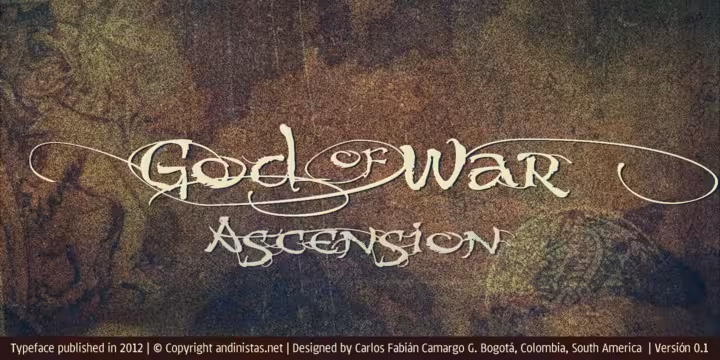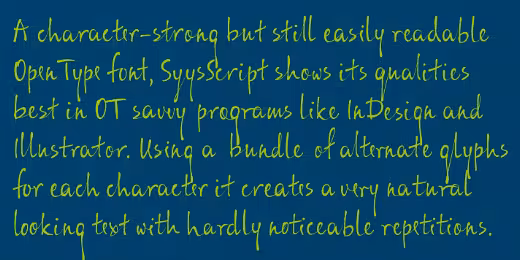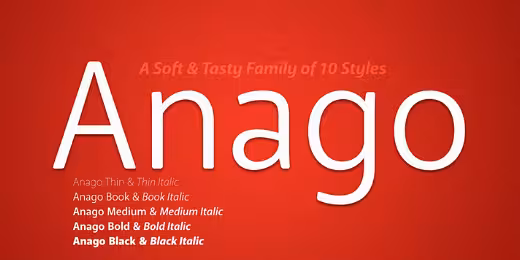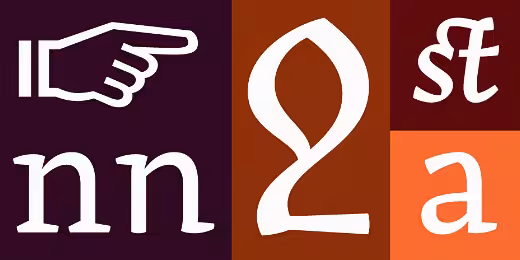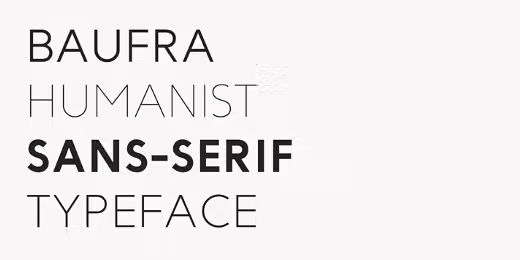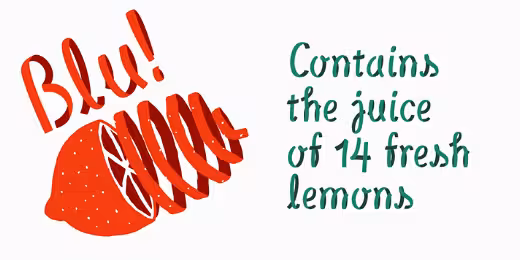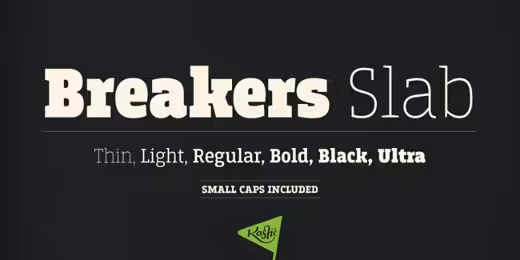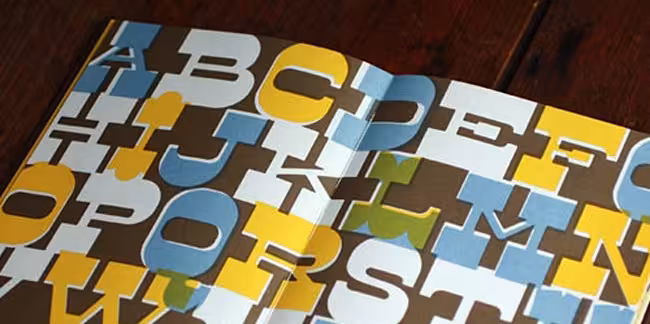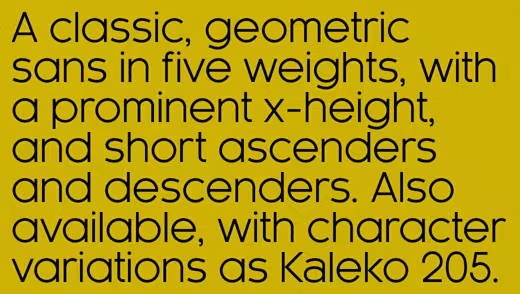
38 Of the most beautiful typeface designs released this winter
Anyone who’s tried their hand at designing a typeface will know that it’s a wildly difficult process, and to actually come out at the end with something beautiful takes an extreme amount of skill, taste and patience.
Type design isn’t for everyone, but typography is, and nearly every designer works with it every day. This is exactly why Type Release creator Sean Mitchell is here to share with you a list of 38 beautiful typefaces, all of which were released this winter. These are his findings:
Associated Typographics: Ramsey
With strong structure and a warm personality, this typeface is a stout but refined workhorse.
Process Type Foundry: Klavika Display
From extra stuffed to skeletal thin, Klavika Display is a collection of fonts for large sizes and an even larger impact.
Okay Type: Harriet
A rational serif family, a contemporary reflection of the serifs popular in mid—20th—century American and English design.
Hoefler & Frere-Jones: Tungsten
The New Tungstens, a set of four different widths, each in eight weights. A compact and sporty sans serif that’s disarming instead of pushy — not just loud, but persuasive.
Jörg Schmitt: Ingrid Mono
The birth of the monospaced types dates back to the past. There was a need for the creation of typesets for typewriters. The difficulty was to align the different glyphs in the same width.
Lost Type Coop: Dude
A reverse contrast cowboy font thats got true grit. It’s not about weight, its about style. Twelve different serif styles inspired by country musics legends.
Sudtipos: Poem Script
A mixed collection of interpretations conjuring a late nineteenth century American pen script style.
The Northern Block: Baufra
A humanist sans—serif typeface, based on the sans—serif typefaces of the early 20th century.
Monokrom: Telefon
Designer: Sindre Bremnes
Based on the lettering on the original Norwegian phone booths, drawn by architect Georg Fredrik Fasting in the 30’s. A general purpose geometric sans serif in three weights.
Monokrom: Satyr
Designer: Sindre Bremnes
Contrasts convex with concave curves, sculpting letterforms instead of adhering to the traces of a physical tool.
Positype: Anago
Designer: Neil Summerour
Soft, ample letterforms are casually constructed and the end result produces a typeface that changes color as it varies in size — allowing the type family to work well in both text and display settings as long as attention is given to size.
Positype: Macha
Designer: Neil Summerour
It’s no-nonsense construction bears many influences from Gill Sans and Frutiger while stubbornly blending my own humanist touch.
Designer: Mateusz Machalski
Wood Type Collection from Borutta is a set of wonderful, warm and weathered hand made typefaces. The inspiration for this collection comes from a wooden letter blocks and other old technologies used for printing.
Font Bureau: Serge
Designer: Cyrus Highsmith
A frisky, acrobatic face that dashes off decorative blurbs, signs, and headlines with a lively, angular zest.
Rene Bieder: RBNo2.1
A condensed sans serif typeface with a technical and geometric appearance.
Art. Lebedev Studio: ALS SyysScript
Designer: Julia Sysmäläinen
Handwriting of a strong Carelian personality revived.
Suitcase Type Foundry: Tabac Slab
Designer: Tomas Brousil
Created by combining several contradictory influences, the result of which is a universal linear font.
Typedepot: Centrale Sans Condensed
Designer: Alexander Nedelev & Veronika Slavova
15% Narrower than its normal sibling, which makes it precious spacesaving tool. 9 weights from Hairline to Extra Bold plus matching italics.
Los Andes: Magallanes Essential
Designer: Daniel Hernández
A contemporary neo—humanist sans serif font designed by Daniel Hernández. Its strokes and terminals are related to the calligraphic strokes from humanist typefaces.
Kostic: Breakers Slab
Designer: Nikola Kostić
A versatile typeface that is strong in headlines and legible in text, with a range of distinct weights from delicate thin to chunky ultra.
Kyle Wayne Benson: Farmer’s Co-op
The extended, extra bold, uppercase, sans serif your forefarmers would have used.
Kyle Wayne Benson: Millie
Much like the Milwaukee logo, Millie is meant to be used on a bit of an angle — though, she looks just fine without it.
Ludwig Type: Marat Sans
Designer: Ludwig Übele
A clean and lively sans serif typeface, characterized by excellent legibility.
Leo Koppelkamm: Blu
An innovative multilayered font, seemingly inspired by bicycle tires and paper streamers, it fits many use cases brilliantly.
Talbot Type: Kaleko 105
Designer: Adrian Talbot
Inspired by the classic, geometric sans-serifs such as Gill Sans, but has shallower ascenders and descenders for a more compact look.
The Northern Block: Reznik
Designer: Jonathan Hill
A compact sans serif with a technical origin. Each character was drafted out from a grid template and then refined through the application of subtle curved detailing.
TipografiaRamis: Decima Mono Pro
Designer: Ramiz Guseynov
A condensed geometric monospaced san serif, built in six styles.
Mika Melvas: Saline
saline
An angular and bumpy brush script. It includes set of nautical ornaments as a OpenType feature.
Latinotype: Schwager
Designer: Luciano Vergara
A steampunk slab serif typeface with an industrial accent in a contemporary tone.
Sudtipos: Platinus Script
Designers: Angel Koziupa & Alejandro Paul
Explores the evolution of invitation scripts from the classic commercial lettering of the 1930s to the ideas clearly visible in the greeting cards of the 1980s and 1990s.
Bold Monday: Macula
Designer: Jacques Le Bailly
Can be described as the ‘impossible typeface’, since its design is based on the concept of impossible objects. This optical illusion was explored into great detail in the 1930’s by the Swedish artist Oscar Reutersvärd, and simultaneously made very famous by Dutch artist M.C. Escher.
Wilton Foundry: Cielo
Designer: Robbie de Villiers
A versatile contemporary typeface family that will serve you well in many design situations.
Rosetta Type Foundry: Arek
Designer: Khajag Apelian
A powerful multi—weight type system with an innovative matching Armenian cursive. Originally designed for school books, it responds well to a range of editorial environments.
Storm: Trivia Grotesk
Designer: František Štorm
A typeface system which originally arose from the need to simply explain to some publishers “serif, sans-serif, egyptian”, etc.
Soneri Type: Concord
Designer: Aakash Soneri
Yet another typeface with simplicity as it’s core element.
Hanoded: Lampion
Designer: David Kerkhoff
A tall, narrow and very legible typeface, which comes with extensive language support.
Andinistas: Demetria
Designer: Carlos Fabián Camargo Guerrero
Works to form words and headlines with medieval expressiveness.
Posterizer KG: Posterizer KG Rounded
Designer: Lazar Dimitrijević
Useful for sweet themes like cookies, puppies, love, joy, or other similar things.